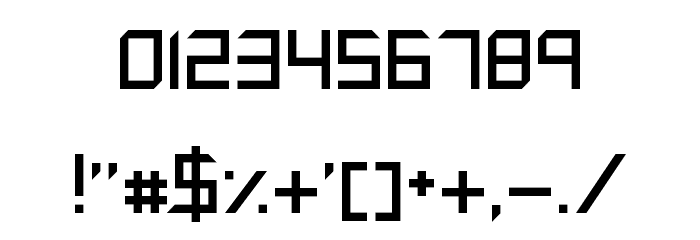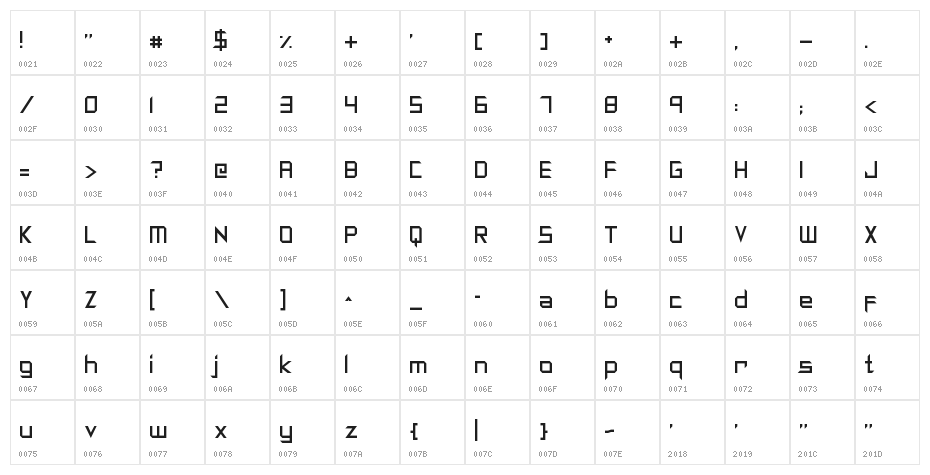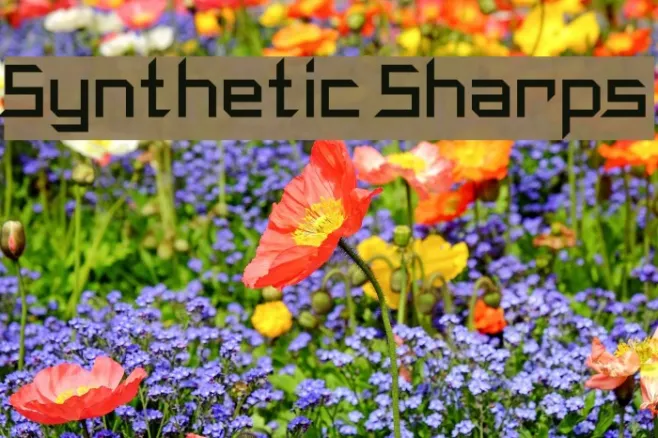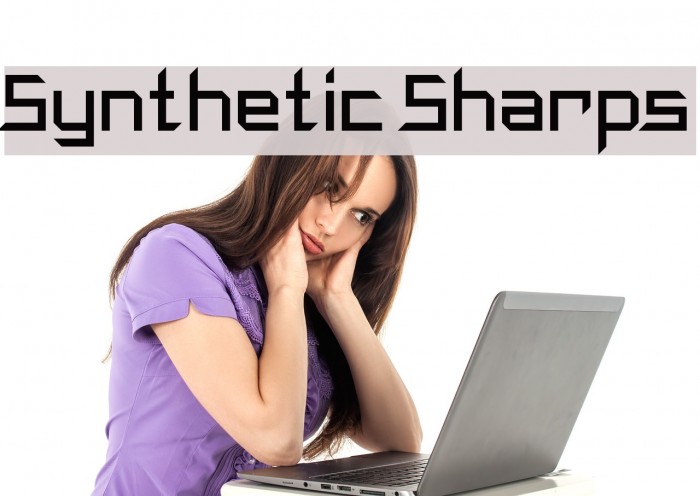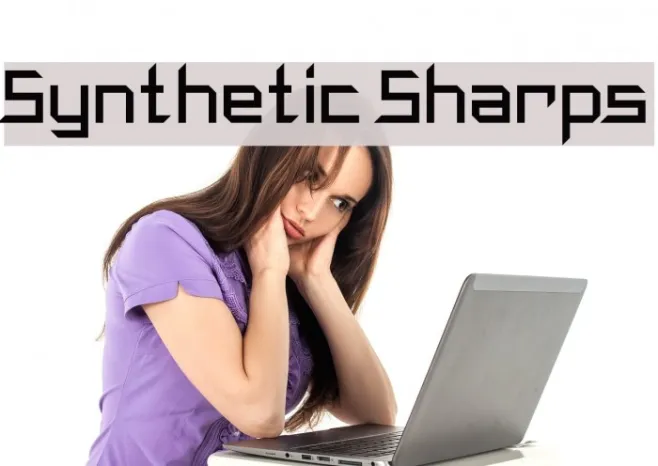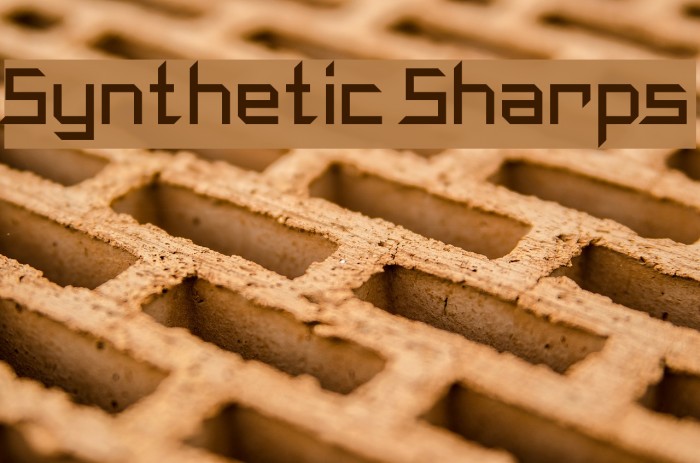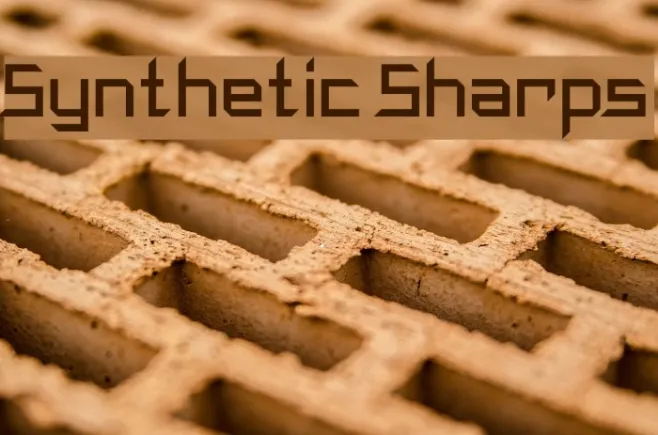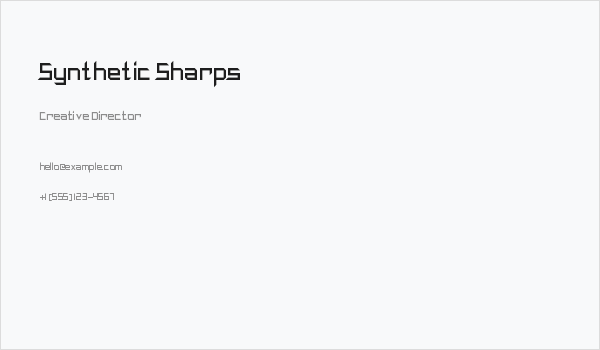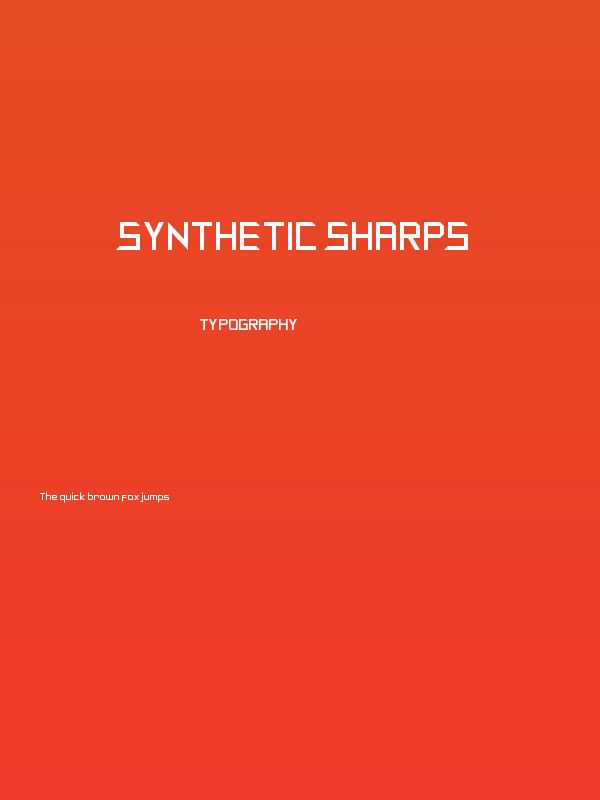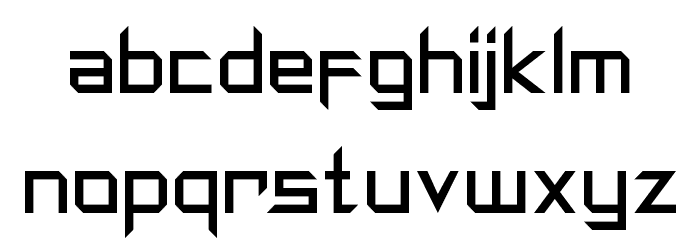
Synthetic Sharps Font
Synthetic Sharps Description
This font features a futuristic and angular design, characterized by sharp edges and geometric shapes. The uppercase and lowercase letters maintain a consistent style, with each character exhibiting a unique angular cut that gives the font a distinct, modern appearance. The numerals and special characters follow the same design principles, ensuring a cohesive look across all glyphs. The font's structure is clean and precise, making it suitable for projects that require a contemporary and tech-inspired aesthetic. Its bold presence and unique character shapes make it stand out, while still maintaining readability.
Proposed ProjectsIdeal for technology branding, sci-fi movie posters, video game titles, and modern digital interfaces.